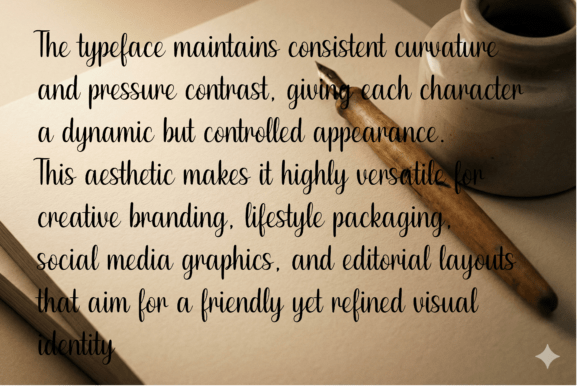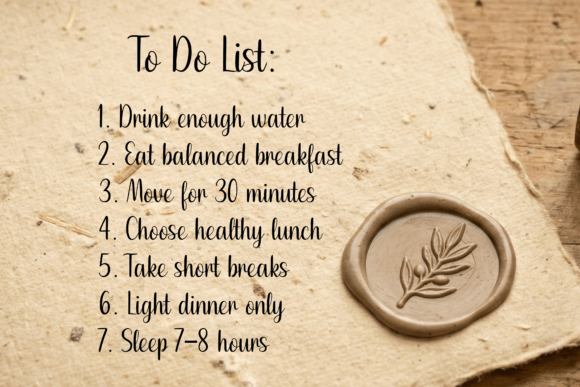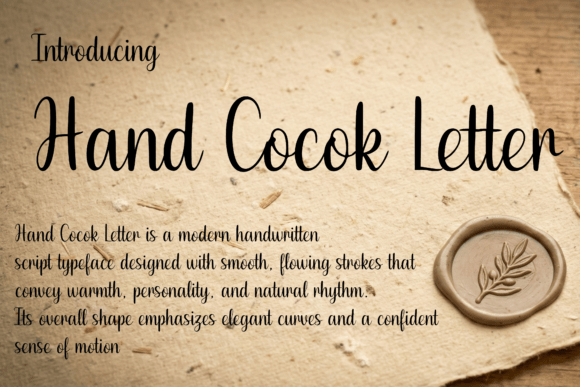
Introducing Hand Cocok Letter: A Handwritten Script Font with Warmth and Personality
In the world of typography, a well-crafted font can elevate a design project from ordinary to extraordinary. For those seeking a typeface that exudes warmth, personality, and effortless charm, Hand Cocok Letter is an exceptional choice. This beautiful handwritten script font is designed to bring a touch of authenticity and emotional resonance to a wide range of creative applications.
The Visual Character of Hand Cocok Letter
Hand Cocok Letter boasts a unique visual character that seamlessly blends smooth curves with confident, elongated forms. This thoughtful design combination yields a refined yet approachable feel, making it suitable for various projects, from elegant branding and packaging to editorial design, social media visuals, and handcrafted product labels.
A Font that Feels Personal and Authentic
One of the standout features of Hand Cocok Letter is its natural flow, reminiscent of personal journaling, crafted calligraphy, and casual penmanship. This quality makes it an ideal choice for projects that demand authenticity and emotional resonance. The font’s balanced rhythm ensures readability without sacrificing artistic presence, allowing it to shine in a variety of contexts.
Elegant and Timeless Aesthetic
The elegant stroke contrast in Hand Cocok Letter creates a polished aesthetic that feels simultaneously modern and timeless. This, combined with its gentle movement, adds a sense of narrative and sincerity to any layout. Whether used in expressive compositions, invitations, inspirational quotes, or other creative projects, this font is sure to leave a lasting impression.
Ideal Applications for Hand Cocok Letter
Hand Cocok Letter’s versatility makes it an excellent choice for a wide range of applications, including:
- Branding and Packaging: Create a lasting impression with a unique and memorable brand identity.
- Editorial Design: Add a touch of elegance and sophistication to magazines, newspapers, and online publications.
- Social Media Visuals: Stand out in a crowded online landscape with eye-catching graphics and typography.
- Handcrafted Product Labels: Add a personal touch to your products and make them more relatable to your target audience.
- Invitations and Event Materials: Create beautiful and memorable invitations that set the tone for your event.
- Inspirational Quotes and Typography: Use Hand Cocok Letter to add a touch of personality and emotion to your quotes and typographic compositions.
Why Choose Hand Cocok Letter?
With so many fonts available, why choose Hand Cocok Letter? Here are just a few reasons:
- Unique and Memorable: Hand Cocok Letter’s distinctive character ensures your design will stand out from the crowd.
- Authentic and Emotional: This font’s personal and authentic feel helps create an emotional connection with your audience.
- Versatile: Hand Cocok Letter is suitable for a wide range of applications, from digital to print.
- Elegant and Timeless: This font’s elegant aesthetic ensures it will remain relevant for years to come.
Hand Cocok Letter is a beautiful handwritten script font that offers a unique blend of warmth, personality, and effortless charm. Its versatility, elegance, and timeless aesthetic make it an excellent choice for designers and crafters seeking to add a touch of authenticity and emotional resonance to their projects. Whether used in branding, packaging, editorial design, or other creative applications, Hand Cocok Letter is sure to leave a lasting impression.